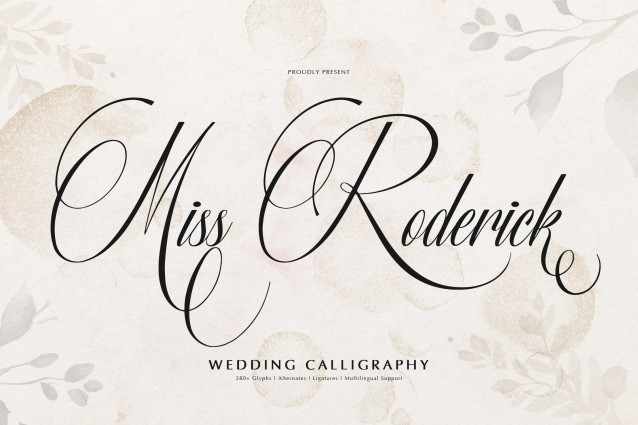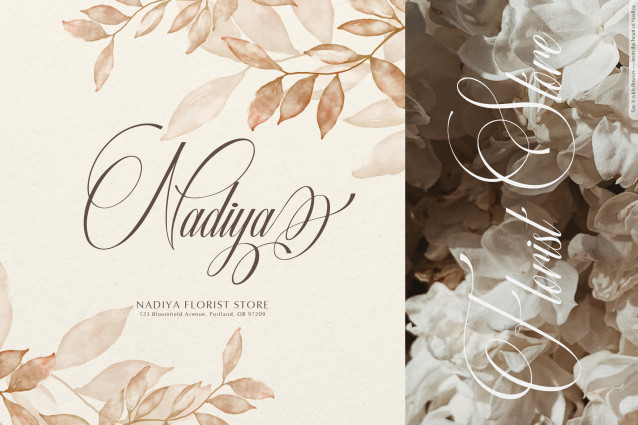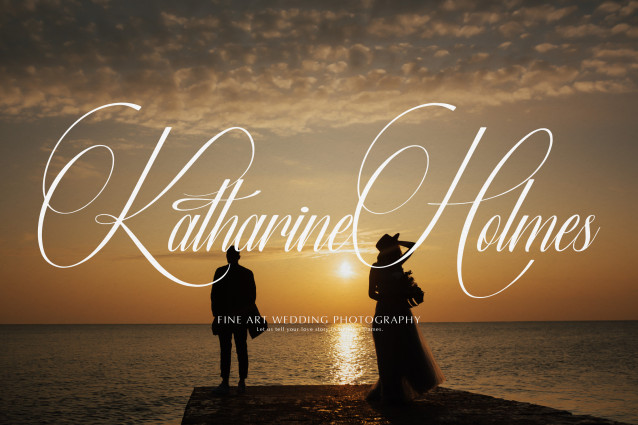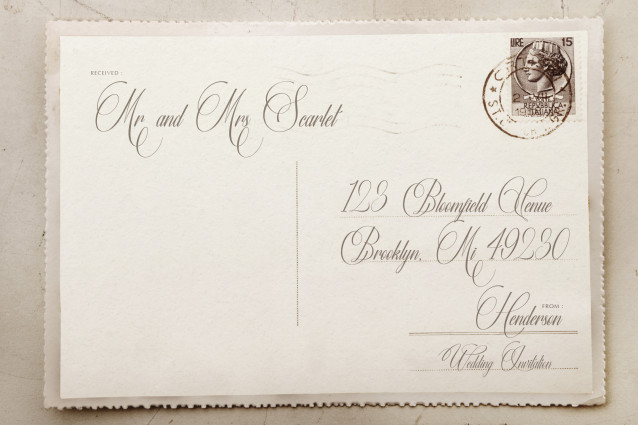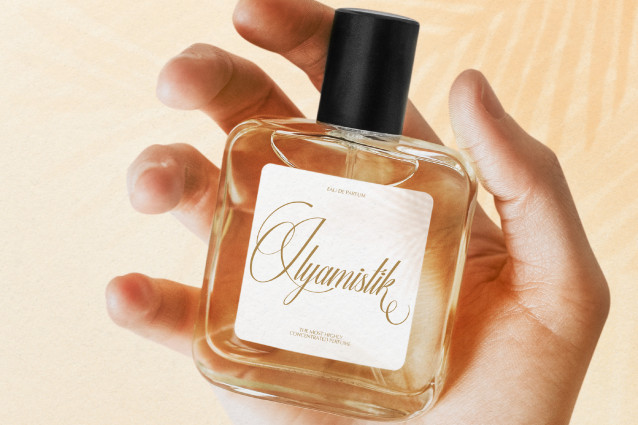
Miss Roderick Font
Miss Roderick Font product packaging, mugs, quotes, posters, shopping bags, t-shirts, book covers, name card, invitation cards, greeting cards, label, photography, watermark, special events, and all your other lovely projects that need a Wedding Calligraphy taste.